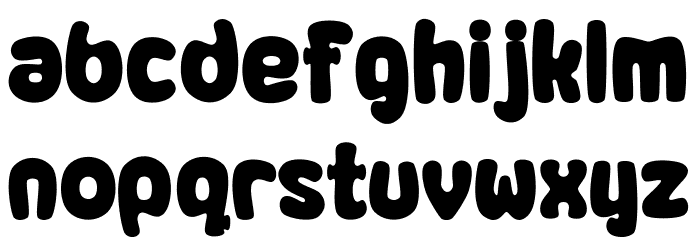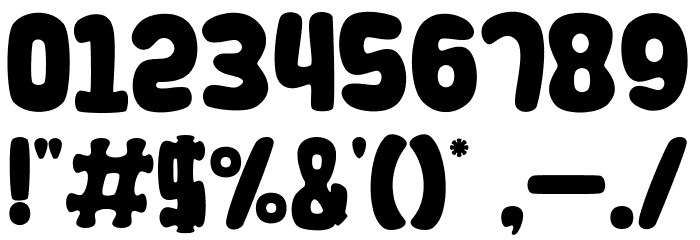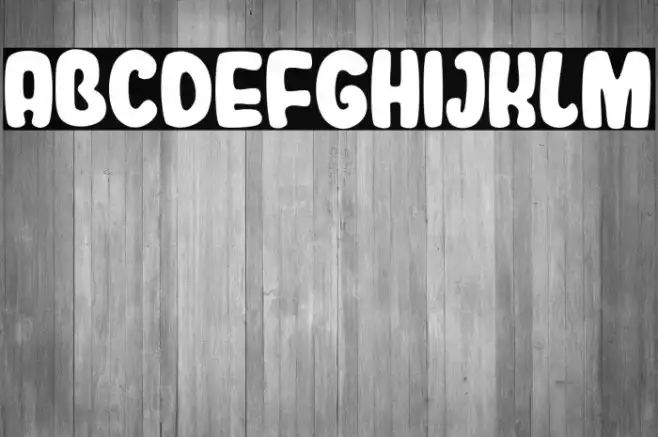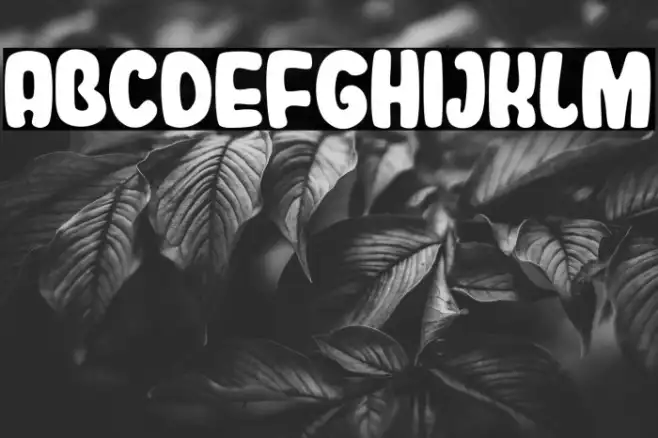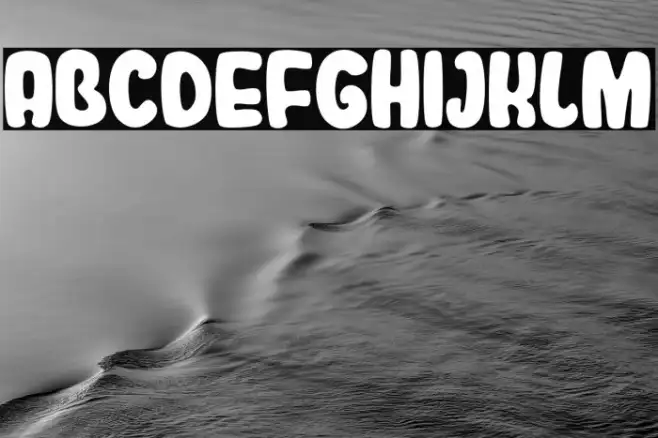
Bo Child Font
This playful and bold font features rounded, bubbly characters that exude a sense of fun and whimsy. The letters are thick and have a consistent weight throughout, creating a uniform appearance that is both eye-catching and approachable. The font's rounded edges and soft curves give it a friendly and informal feel, making it ideal for projects that aim to convey warmth and approachability. The numerals and special characters maintain the same playful style, ensuring a cohesive look across all text elements. This font is perfect for children's books, playful branding, or any design that requires a touch of lightheartedness.
A playful, bold font with rounded, bubbly characters ideal for fun and informal designs.
- Font: Bo Child
- Proposed Projects: Children's books, playful branding, party invitations, casual posters, and merchandise.
- Overall Style: Playful